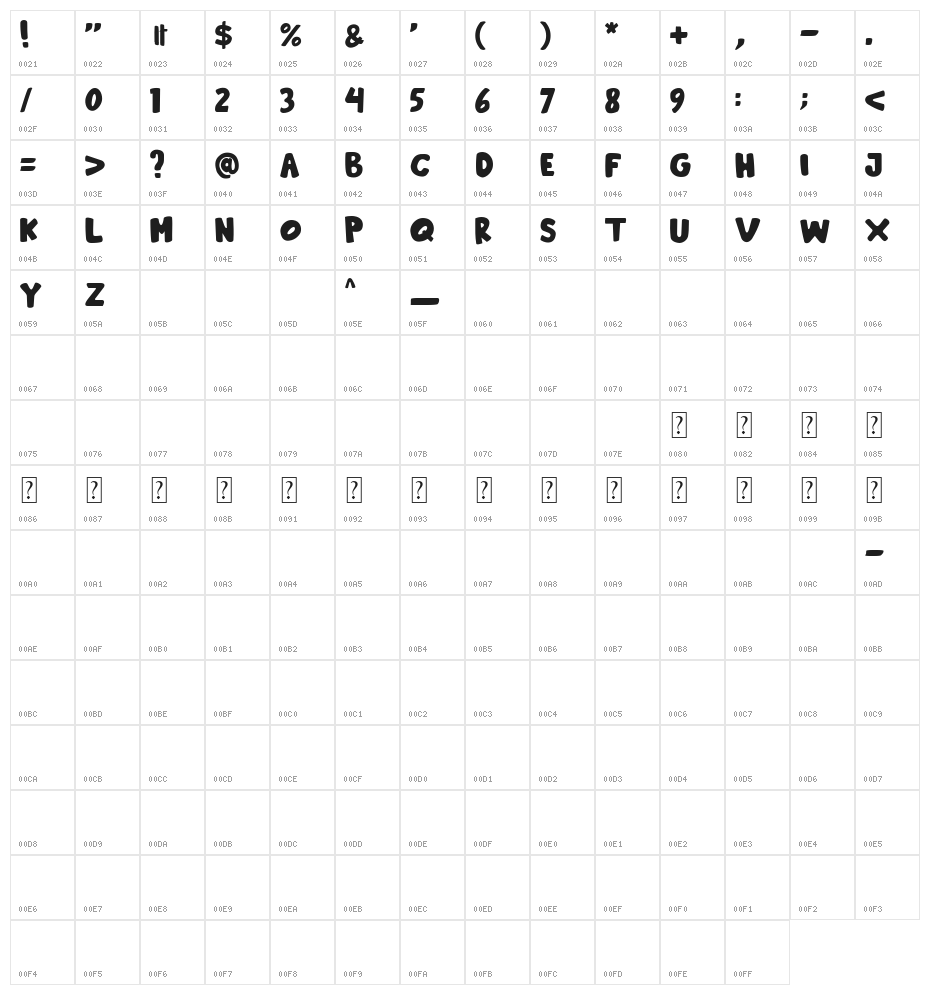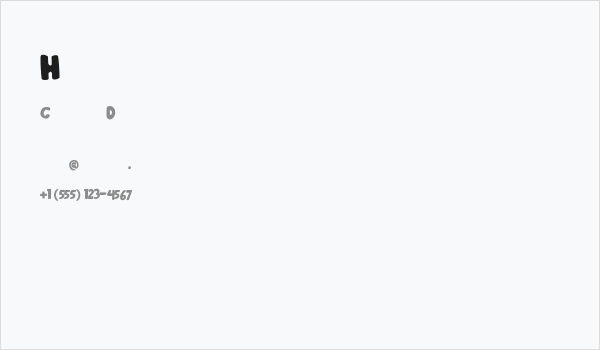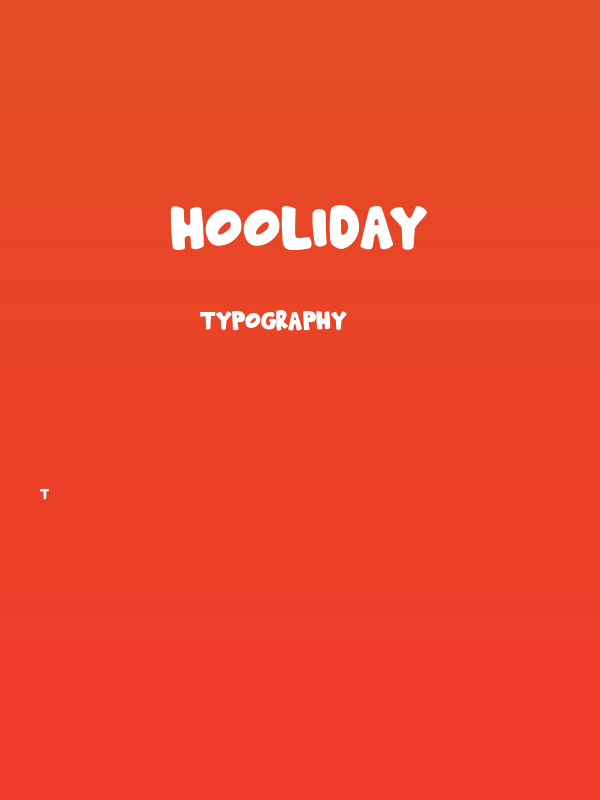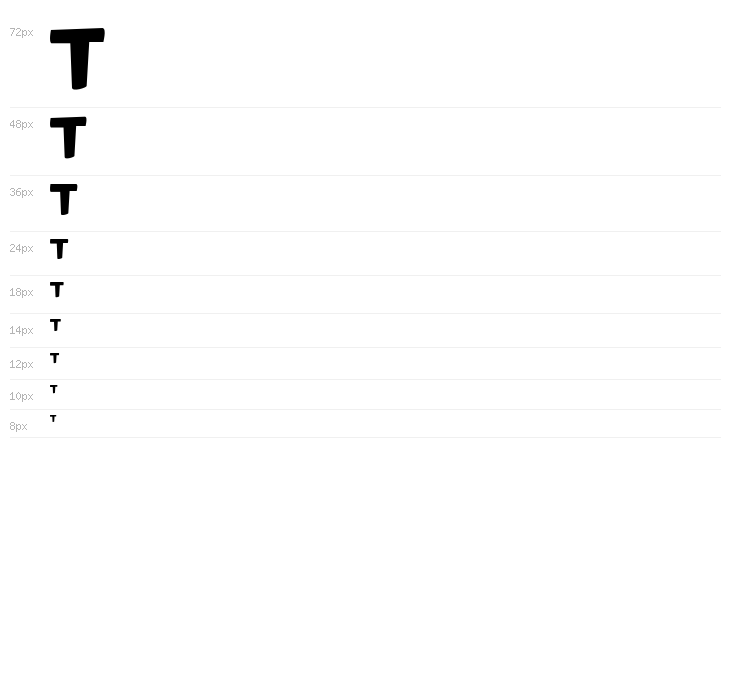
Hooliday Font
Hooliday Description
This playful and bold font features rounded, thick strokes that give it a friendly and approachable appearance. The characters are slightly irregular, adding a whimsical touch that enhances its charm. The uppercase letters are uniform in height, while the numbers and special characters maintain the same playful style. This font's boldness makes it stand out, making it ideal for eye-catching designs. The overall style is casual and fun, perfect for projects that require a lively and informal tone.
| Overall Style | Casual, Fun |
| Proposed Projects | Ideal for children's books, party invitations, playful branding, and casual posters. |